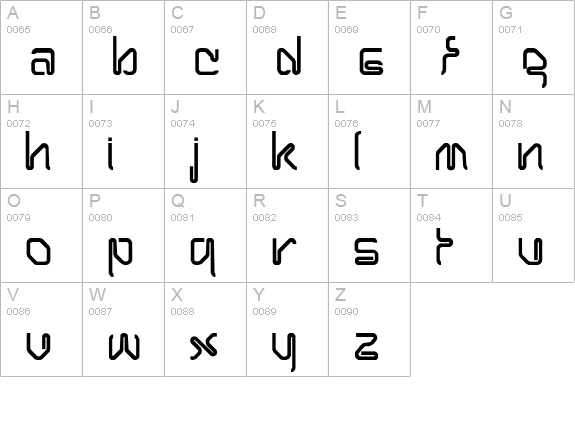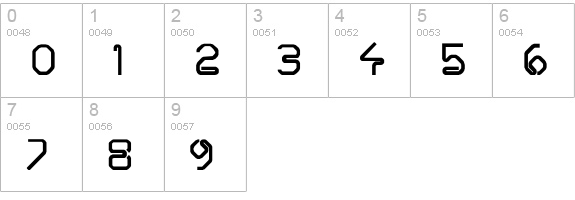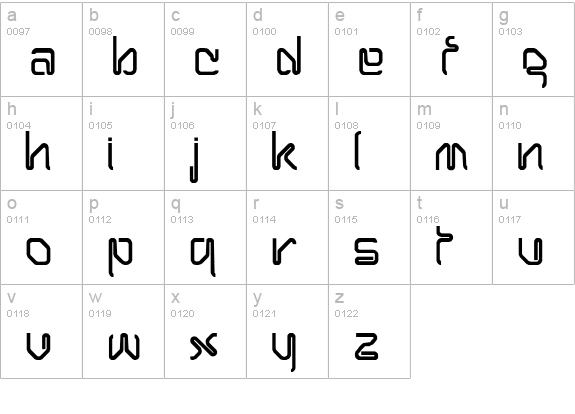
Hairpin-Normal Font Details
Hairpin-Normal is the standard, neutral variant in the Hairpin typeface family \xE2\x80\x94 well suited to general body text, paragraphs, and standard typographic work.
Hairpin-Normal font is a sleek and stylish typeface that is perfect for adding a touch of elegance to any project. Its clean lines and graceful curves make it a versatile choice for both headings and body text. With its balanced proportions and modern aesthetic, Hairpin-Normal font is sure to catch the eye and make a lasting impression. This font is not only visually appealing but also incredibly easy to read, making it suitable for a wide range of applications. Whether you need it for a website, a brochure, or a branding project, Hairpin-Normal font will ensure that your message is communicated clearly and effectively. One of the best things about Hairpin-Normal font is that it is completely free to download. That's right, you can enhance your design projects without spending a penny. Simply head over to FontsMarket.com and get your hands on this amazing font. With just a few clicks, you'll have access to a high-quality typeface that will take your designs to the next level. So why wait? Start using Hairpin-Normal font today and see the difference it can make in your projects. Whether you're a professional designer or a hobbyist, this font is sure to become a valuable addition to your toolkit. Don't miss out on this opportunity to elevate your designs with a free and fabulous font. Download Hairpin-Normal now at FontsMarket.com and unleash your creativity.